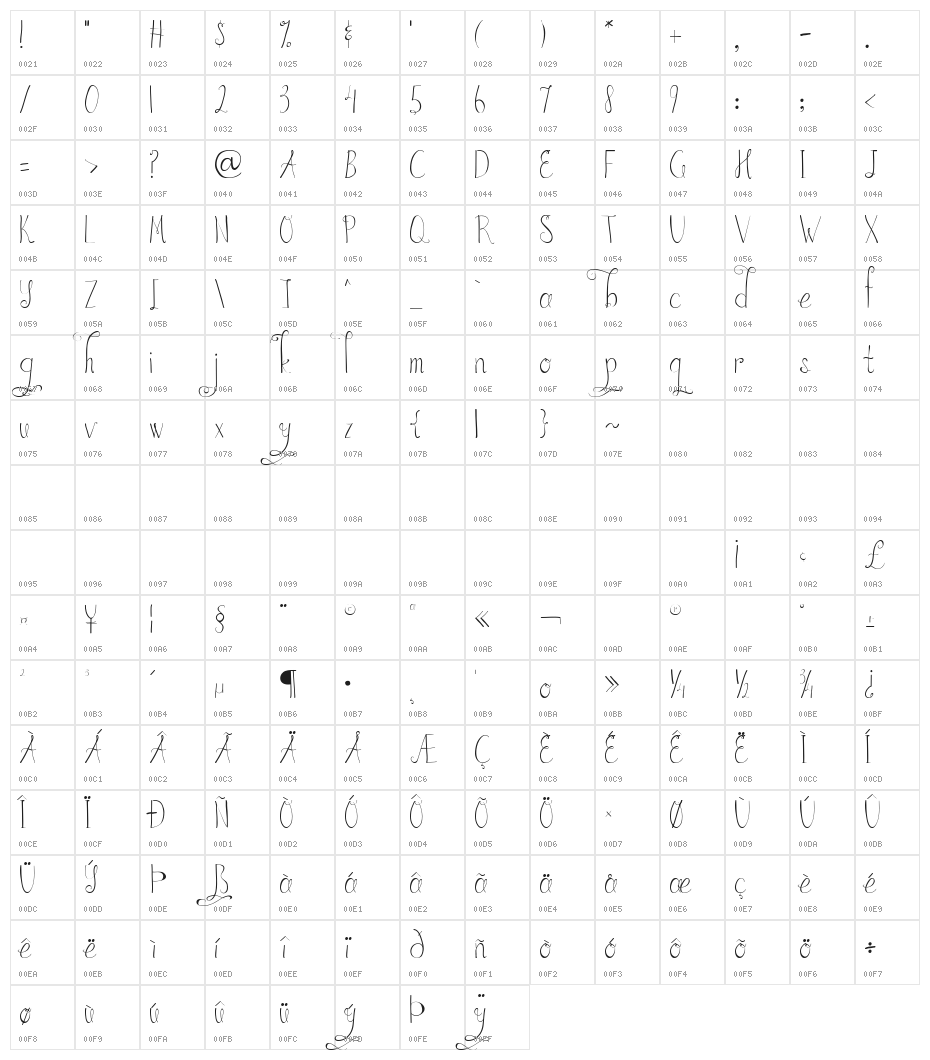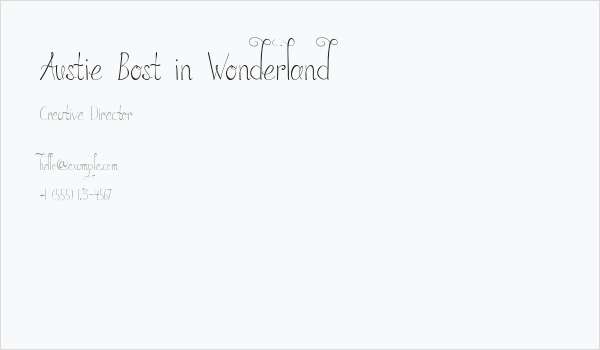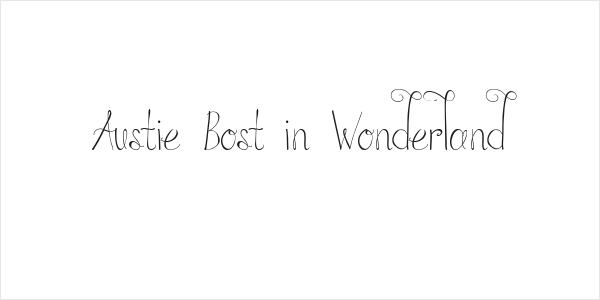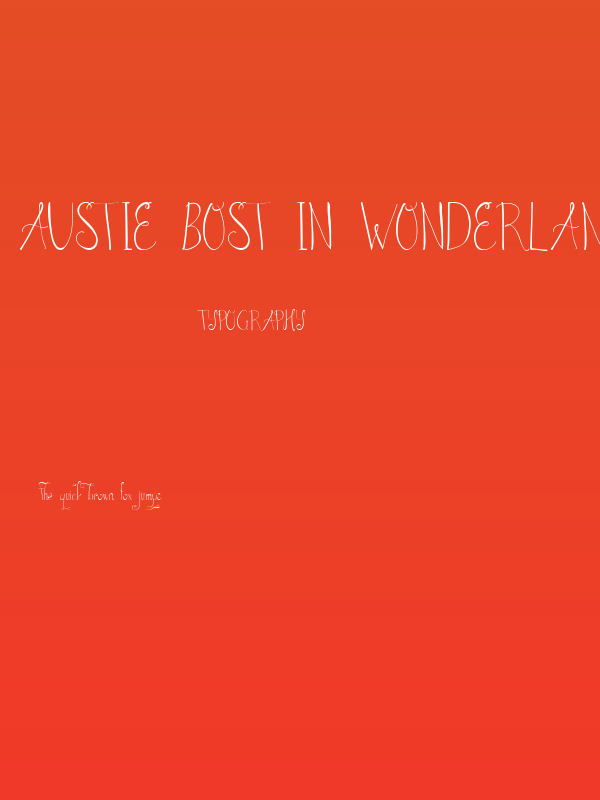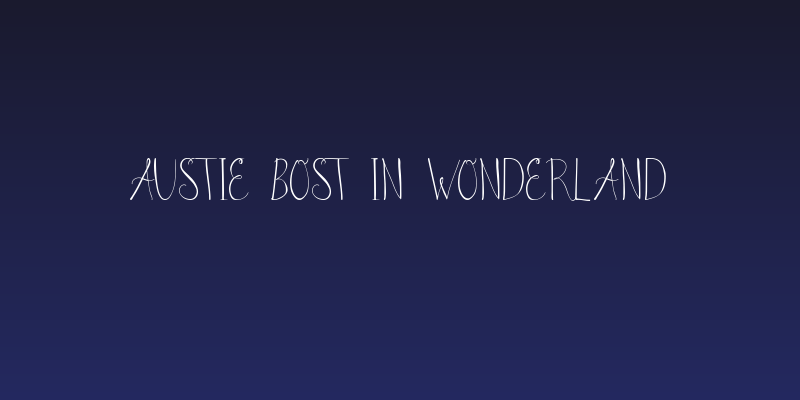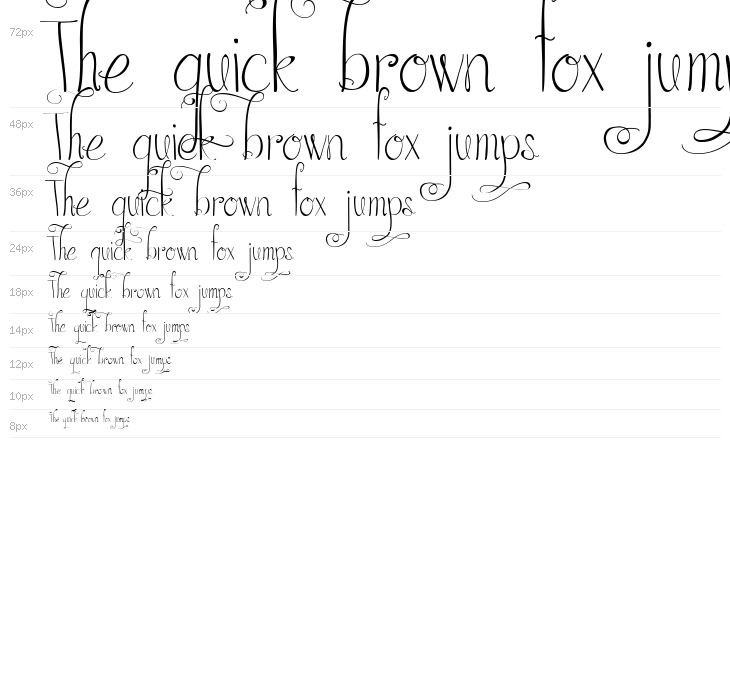
Austie Bost in Wonderland Font
Austie Bost in Wonderland Description
This whimsical and playful font features tall, slender letters with elegant swirls and curls, reminiscent of a fairy tale or fantasy theme. The uppercase letters are particularly ornate, with loops and flourishes that add a touch of magic and wonder. The lowercase letters maintain a consistent style, with a slightly more subdued flair. Numbers and special characters are designed to match the overall aesthetic, ensuring a cohesive look. This font is perfect for projects that require a touch of enchantment and creativity.
| Proposed Projects | Ideal for children's book covers, fantasy-themed invitations, whimsical branding, and creative posters. |